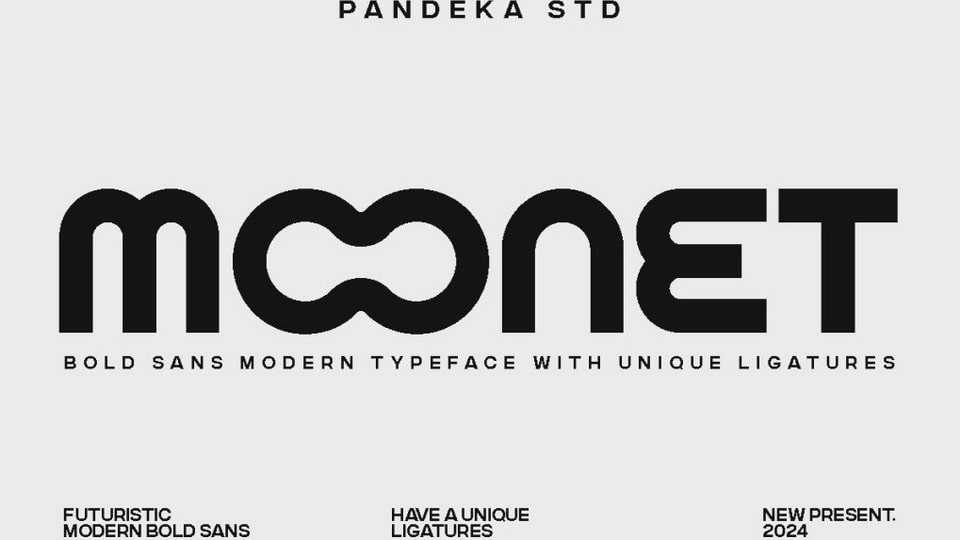
Download Moonet font, a futuristic modern typeface with unique ligatures. Moonet is a stunning typeface that combines elegance with a minimalist form.